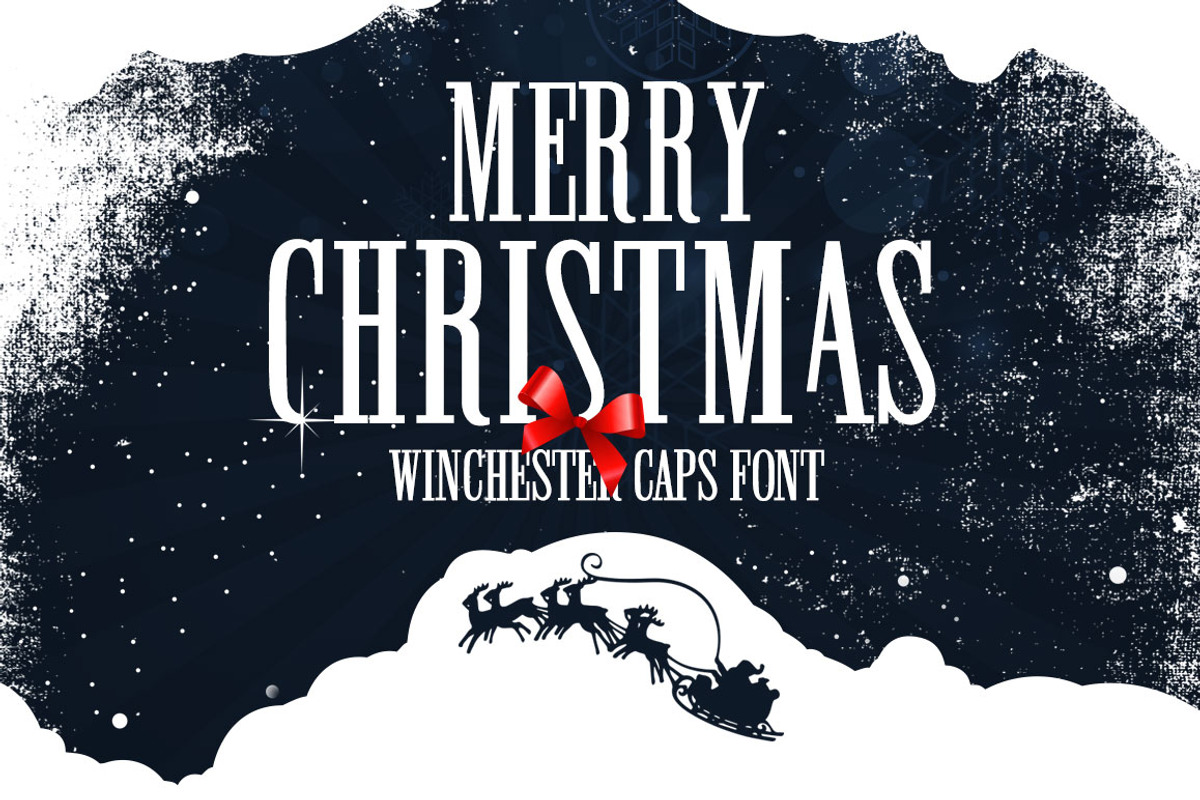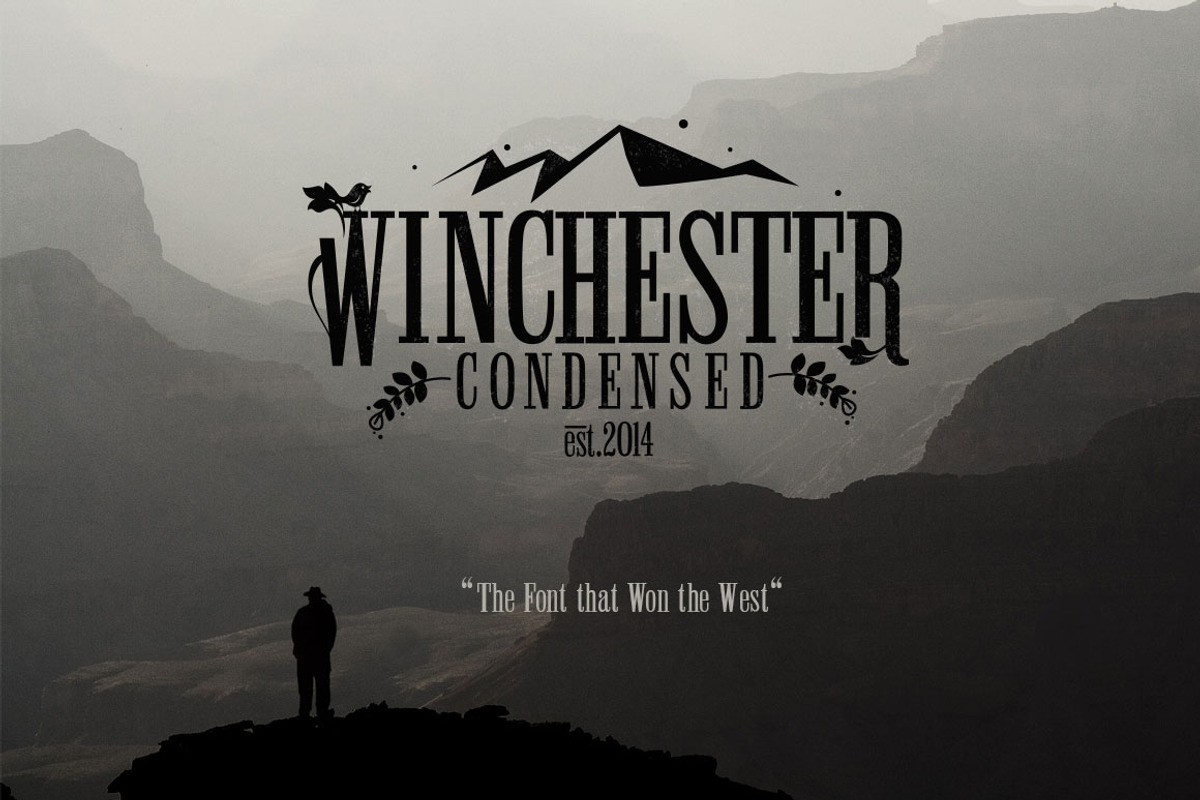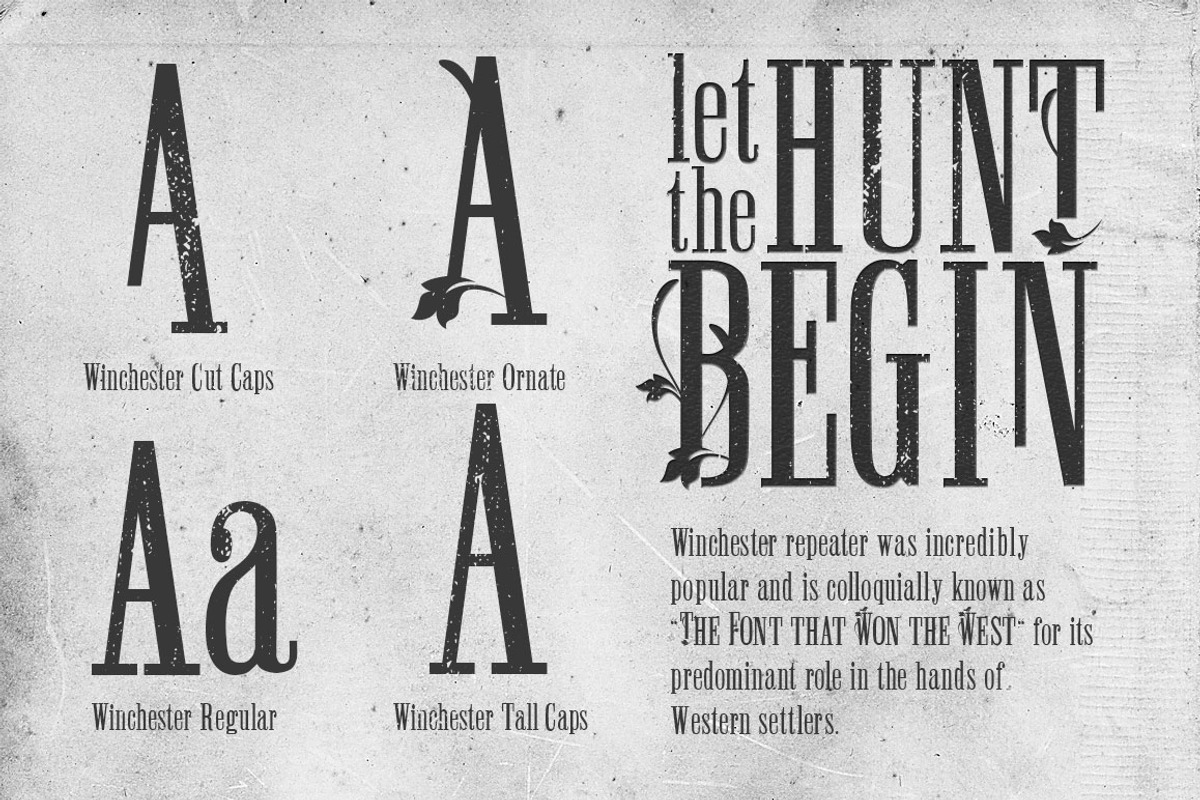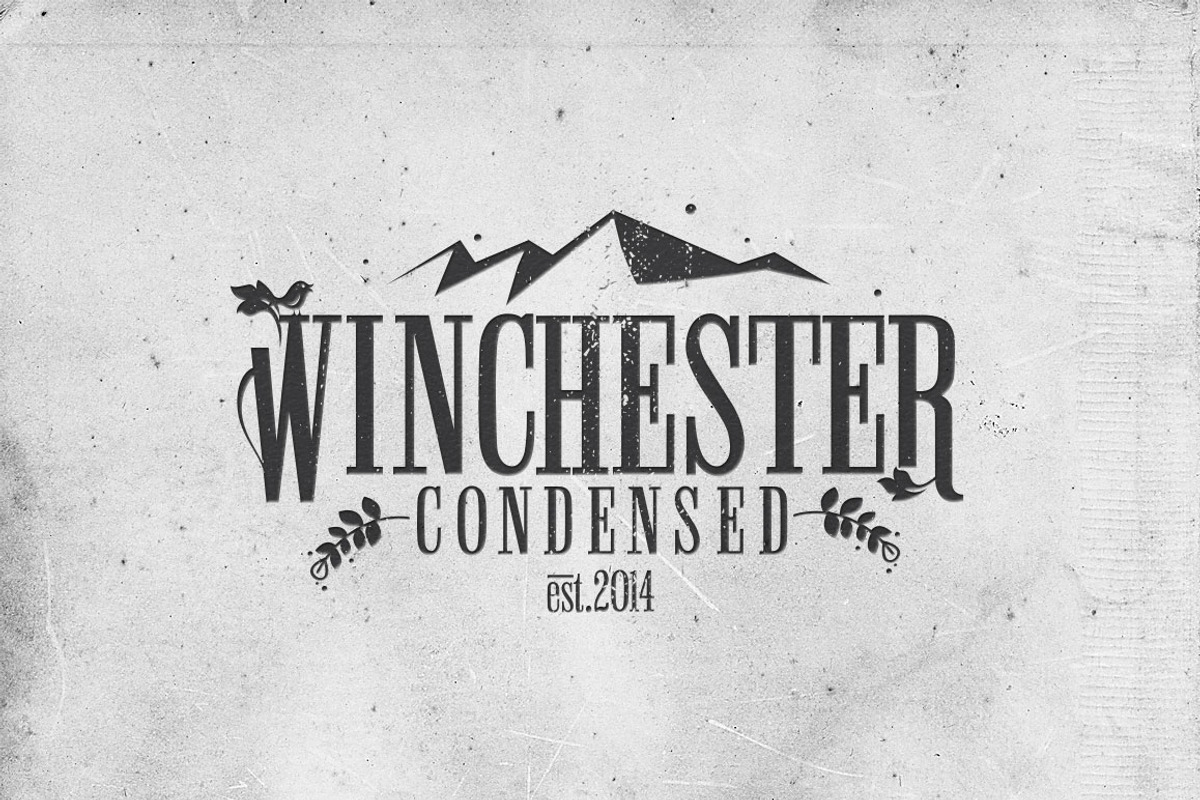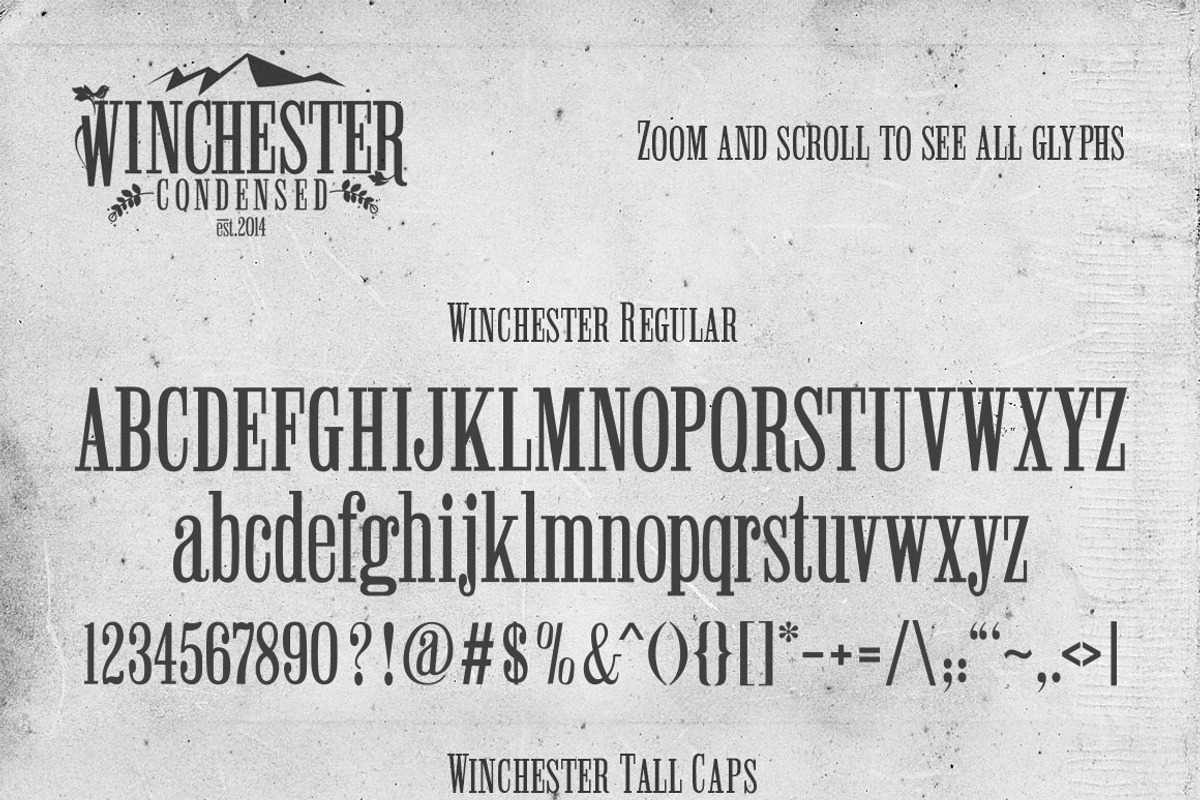
Winchester Condensed Font
Winchester Condensed Font by DesignSomething is a font selected for branding, posters, packaging, typography.
- Winchester Caps Regular
- Winchester Cuts Regular
- Winchester Ornate Regular
- Winchester Regular
Why Winchester Condensed Font is worth a look
Winchester Condensed Font by DesignSomething fits naturally into Branding, posters, packaging, typography.